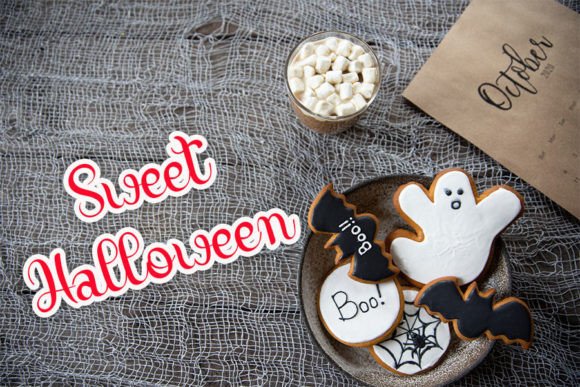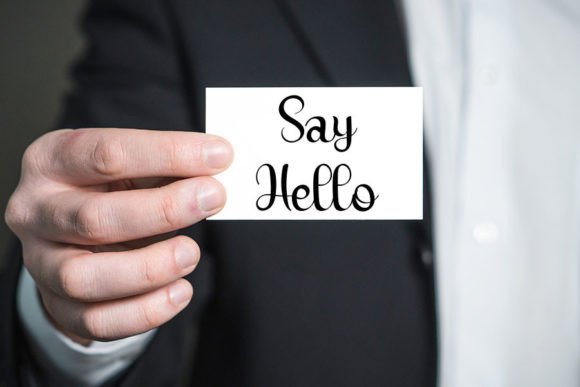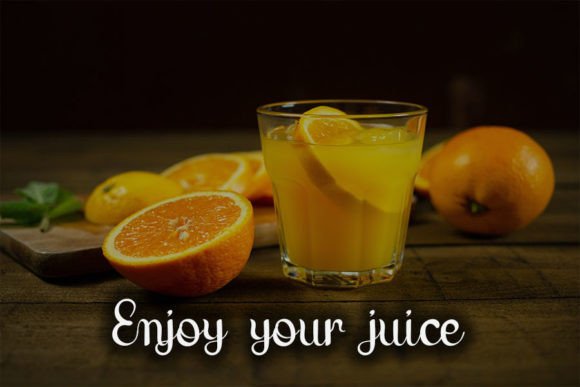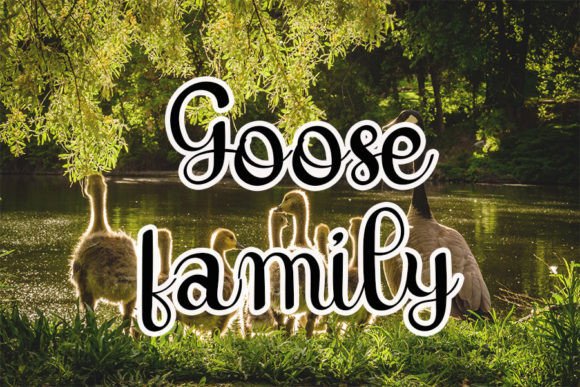
About Daylight Font
Introducing Daylight, an inviting handwritten font meticulously crafted to be a cherished favorite. With its seamless blend of classic calligraphy influences and a contemporary, fresh feel, Daylight is more than just a font – it’s a creative companion that promises to breathe life into all your projects. Consider it a must-have addition to your fonts library, ready to infuse vitality and charm into every design.
What sets Daylight apart is its ability to harmonize timeless calligraphic elements with a modern aesthetic. The result is a font that radiates friendliness and approachability, making it versatile for a myriad of applications. Whether you’re working on invitations, logos, or any creative endeavor, Daylight brings a touch of warmth and individuality to your text.
Beyond being a mere collection of letters, Daylight transforms the act of text into a visual experience. It captures the essence of creativity, infusing your projects with a sense of ease and liveliness. This font serves as a conduit for your unique storytelling, turning ordinary words into a dynamic expression of your creative vision.
Imagine Daylight gracing your invitations, setting the stage for an event that’s both welcoming and delightful. Envision it in your branding, adding a personal touch that resonates with your audience. Picture it on social media graphics, posters, or any project where you want your text to stand out and exude a friendly charm.
In conclusion, Daylight isn’t merely a font; it’s a design ally that enhances your creative projects with a friendly and handwritten touch. Download it today and witness your creations come alive with the timeless yet contemporary allure of Daylight. Make it a staple in your fonts library, and let it be the catalyst that adds vibrancy and personality to all your endeavors!